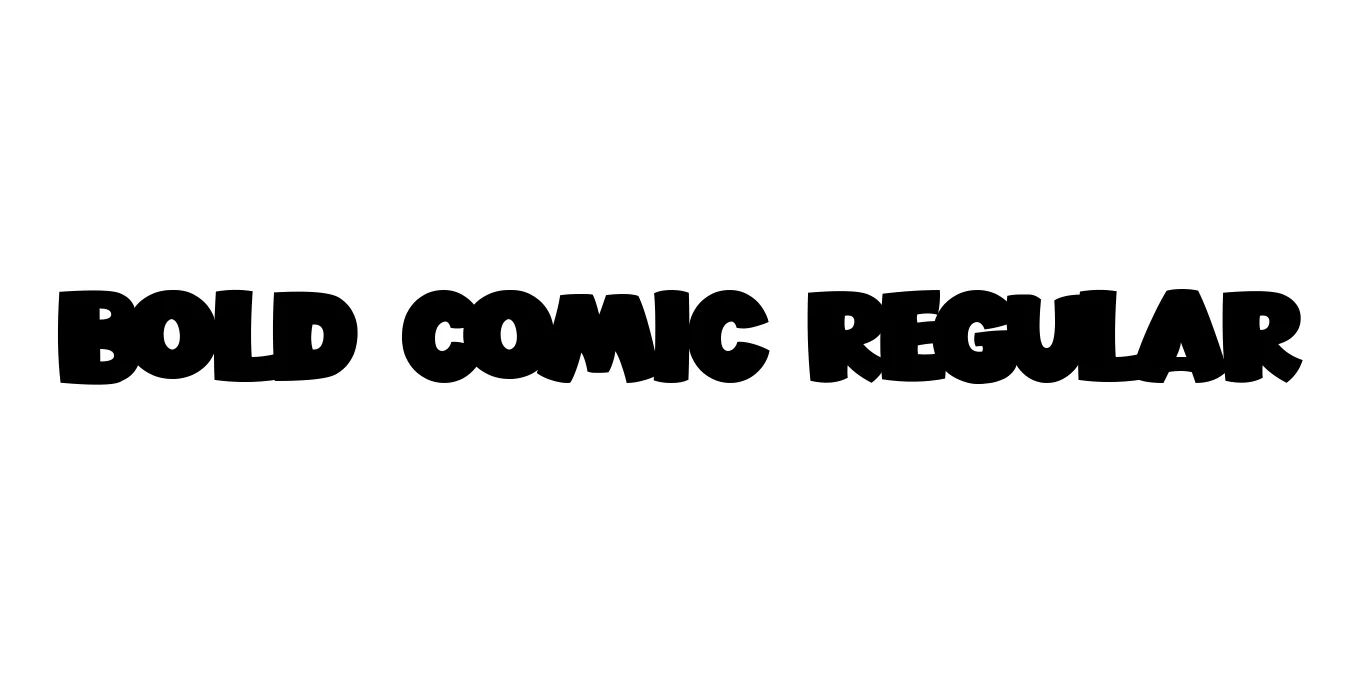
Bold Comic Regular
Designed by Geronimo Fonts
| Font Name | Bold Comic |
| Category | Display / Comic |
| Designer | Geronimo Fonts |
| Similar Fonts | Comic Sans MS, Comic Relief, Bubblegum Sans, Janda Manatee |
The Bold Comic Regular font is a modern interpretation of the classic hand-lettering styles found in mid-century American comic books. Designed to convey energy and motion, this typeface features heavy, rounded strokes that provide a friendly yet impactful presence on the page. It was crafted to bridge the gap between amateur handwriting and professional display typography, ensuring that every character remains legible even when used in high-intensity action sequences or dense dialogue bubbles.
Throughout its development, Bold Comic Regular has been optimized for both print and digital environments. Its wide stance and generous kerning allow it to stand out against busy backgrounds, making it a favorite for graphic designers working on children's literature, gaming interfaces, and promotional posters. The font's inherent playfulness makes it a staple for projects that require a touch of whimsy without sacrificing a clean, professional finish.
Bold Comic Regular Best Uses
Ideal for speech bubbles and action-oriented titles.
Perfect for toy packaging, school supplies, and logo designs.
Great for YouTube thumbnails and mobile game user interfaces.
Effective for eye-catching promotional flyers and event posters.